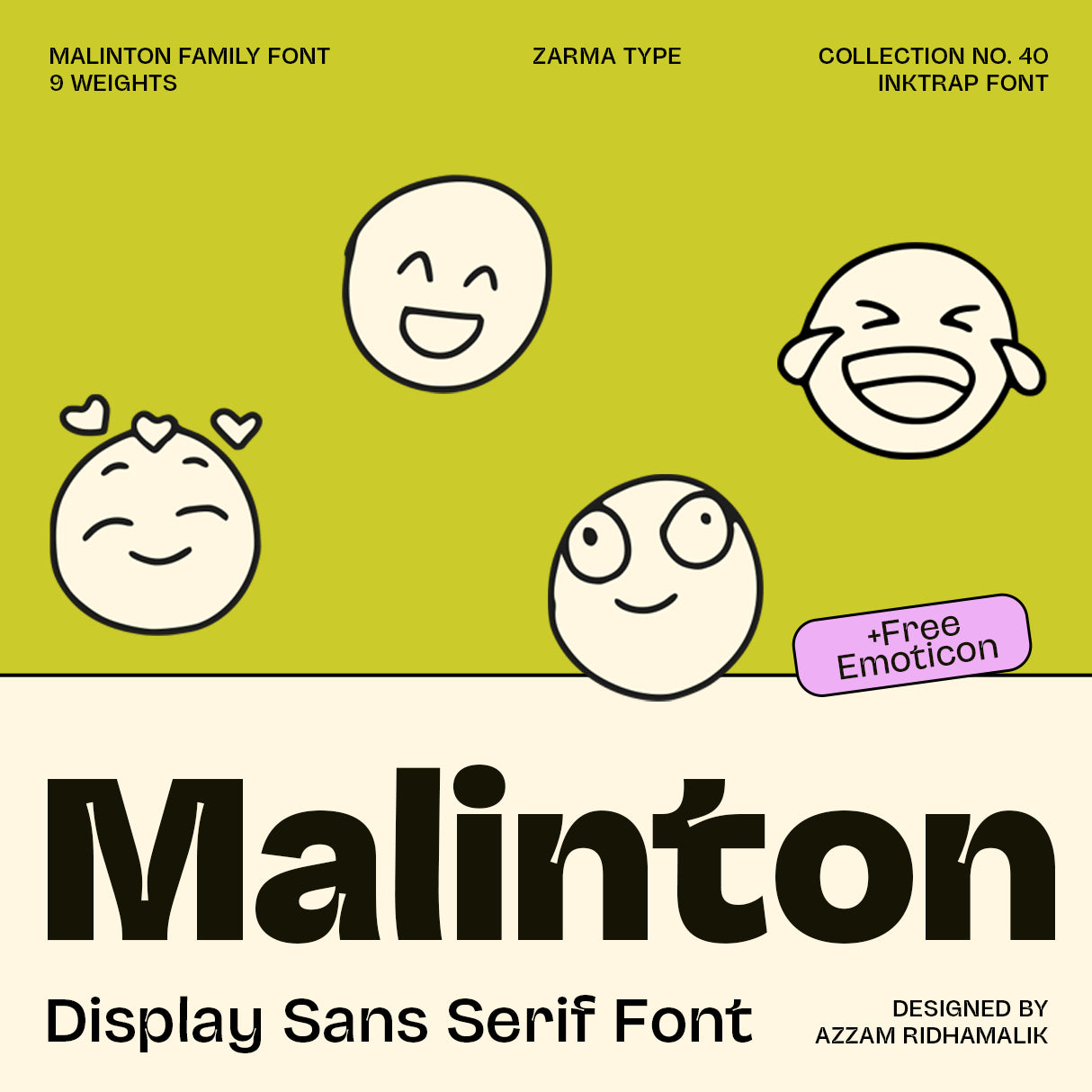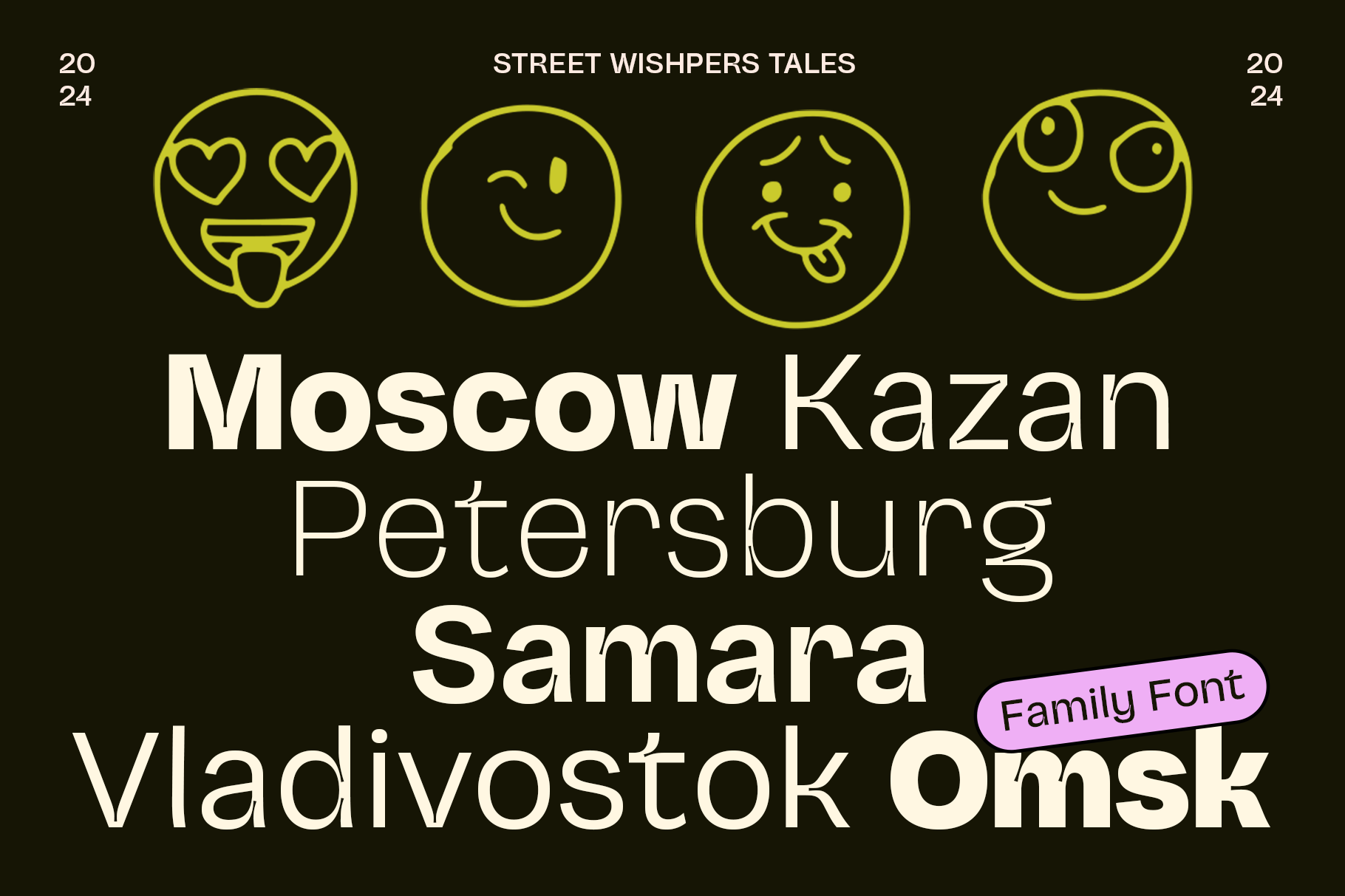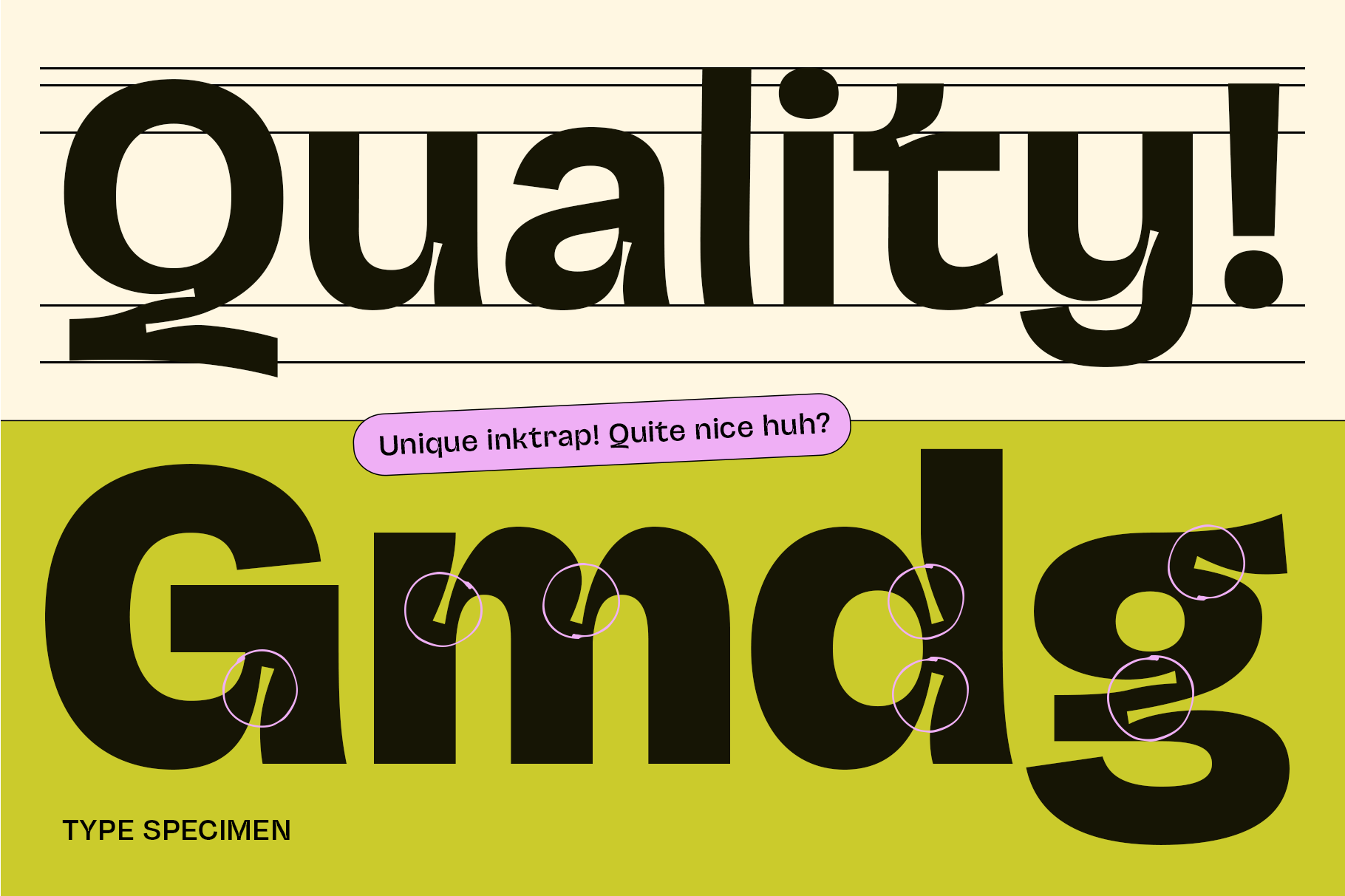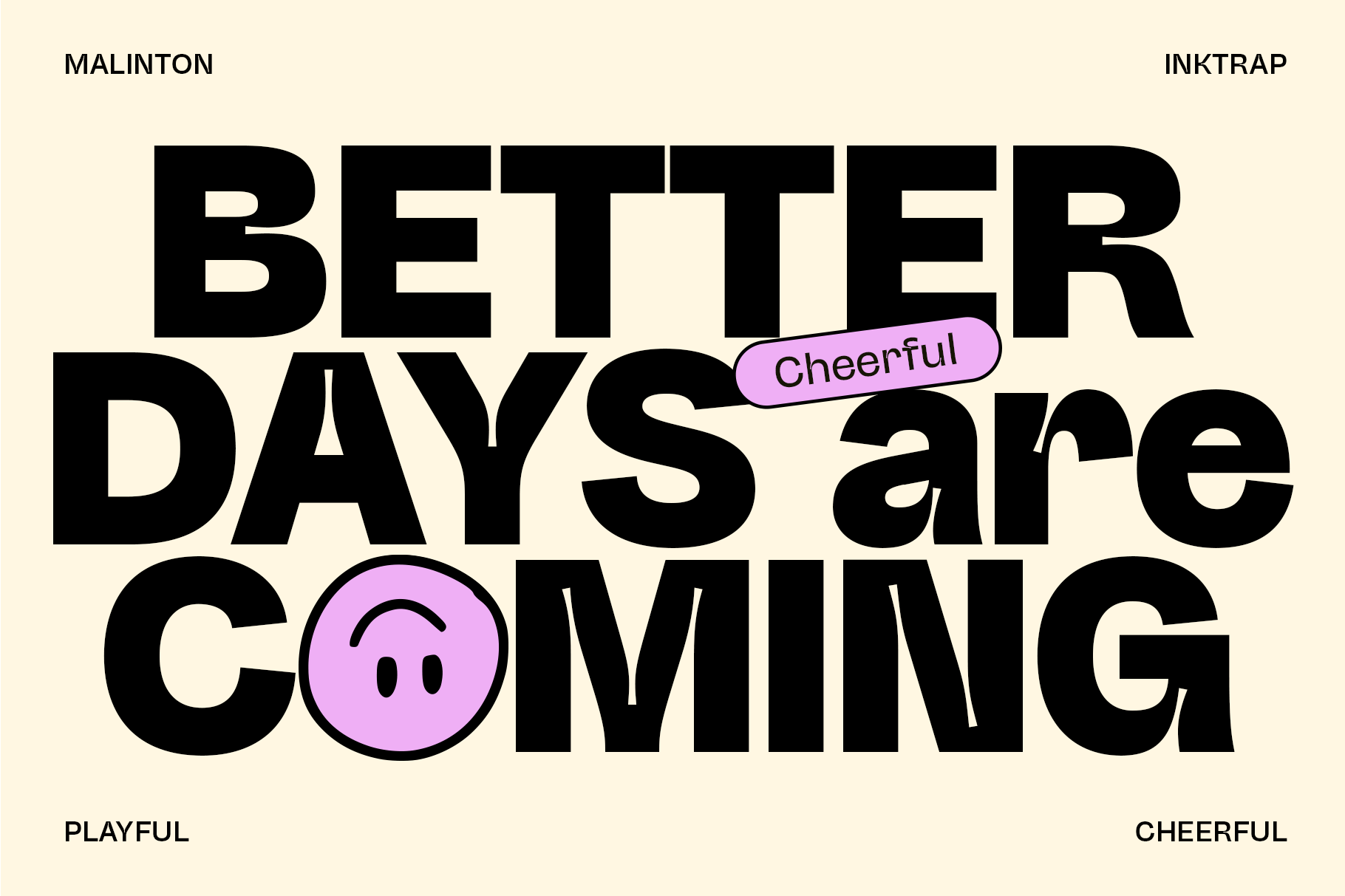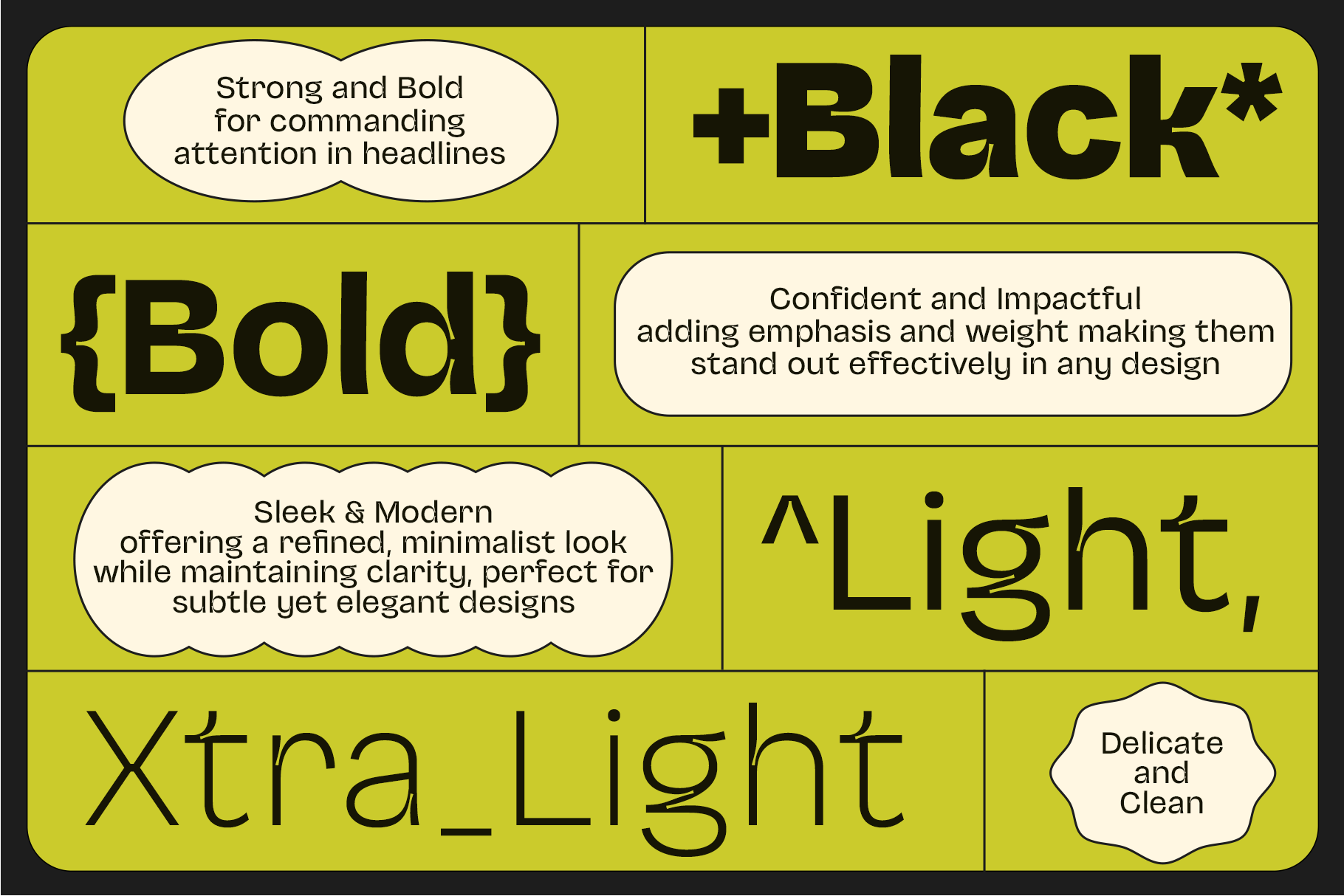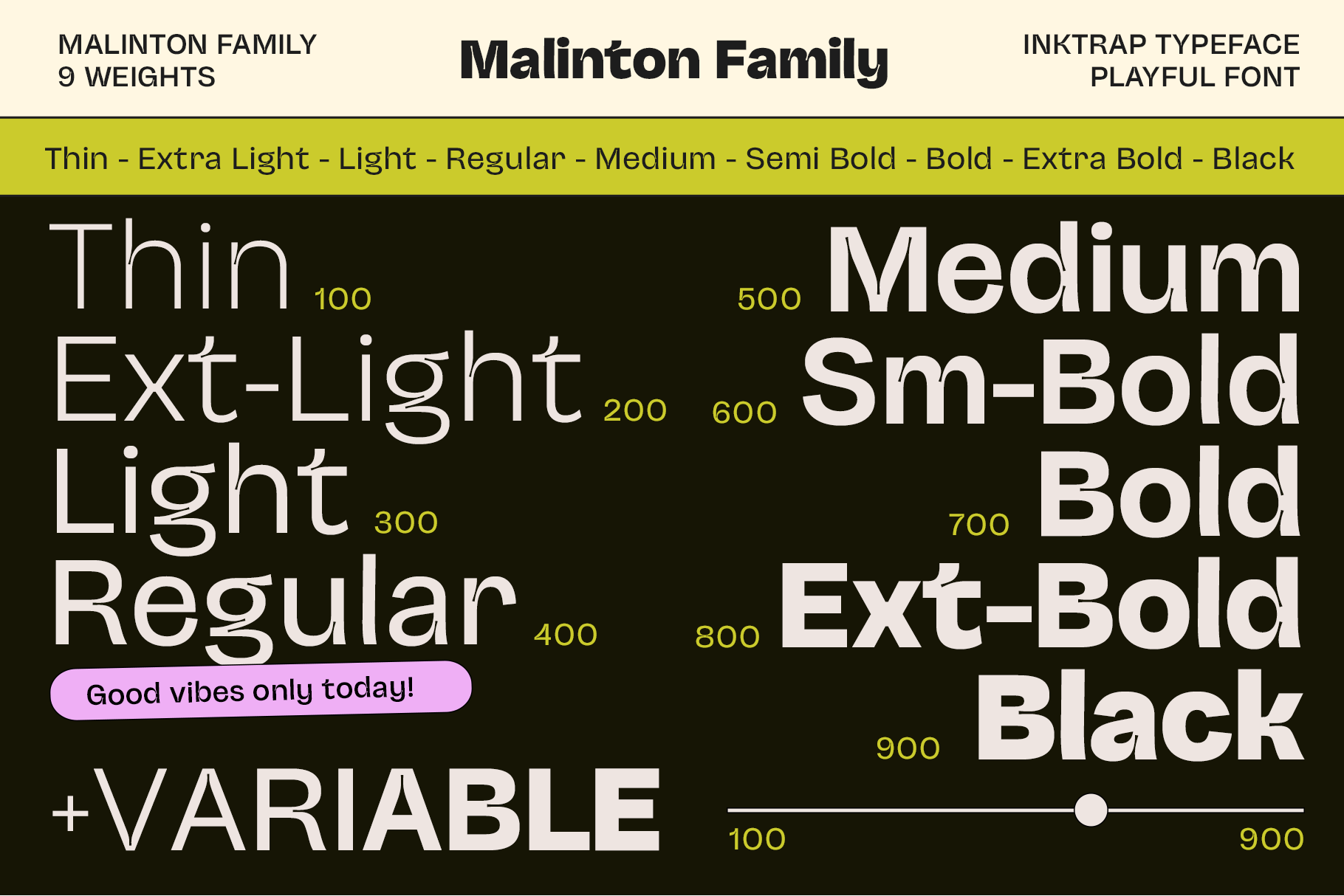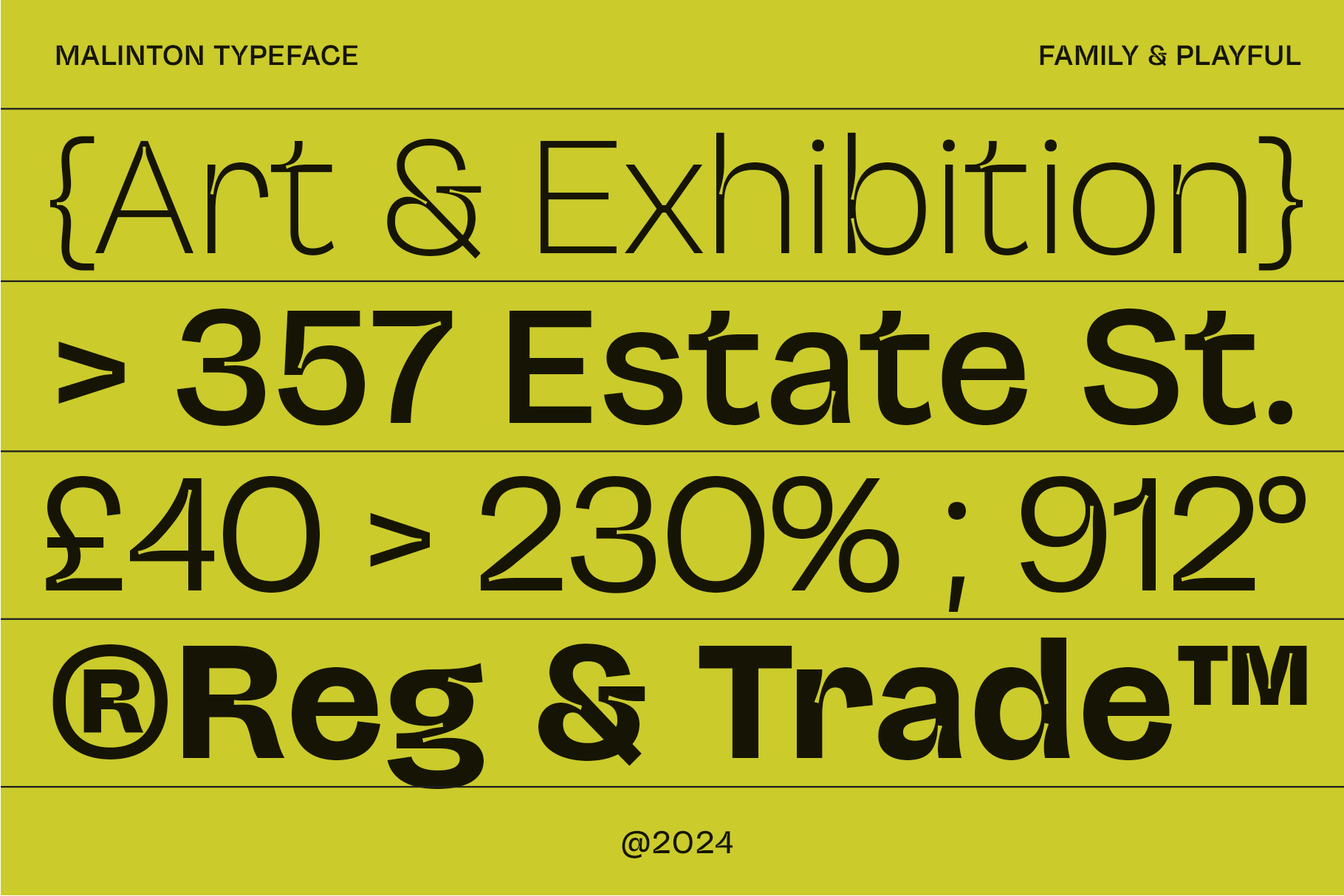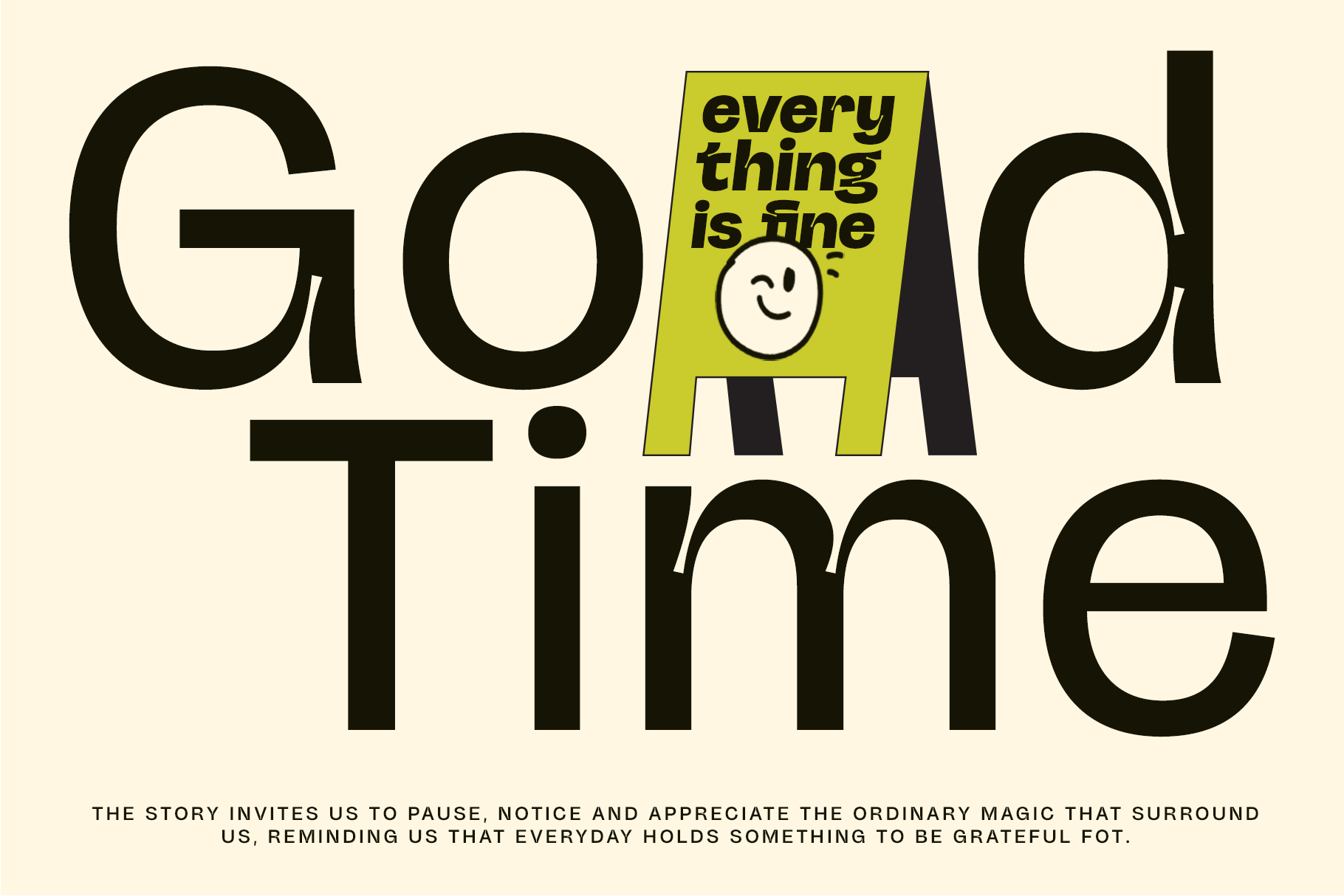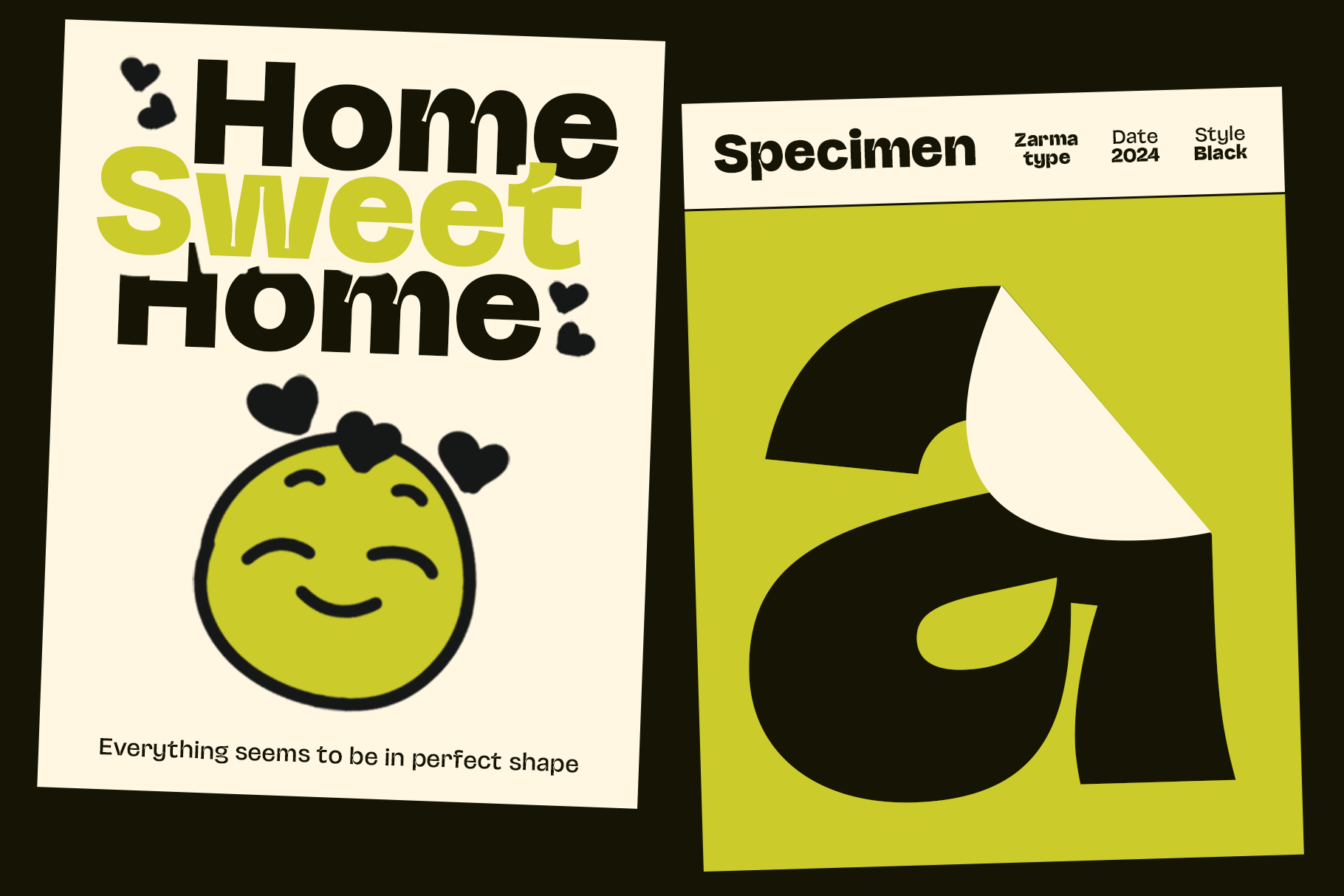
Malinton Family Font
Malinton is a versatile Playful Font and modern display sans serif designed to bring personality to every project. From branding, logos, social media, editorial headlines, and marketing materials to creative packaging, Malinton transforms ordinary typography into bold visual statements. Available in 9 weights from Extra Light to Black, including a Variable Font, it features professional inktraps for a clean contemporary look, smooth weight transitions, and unique Free Emoticon alternates that add extra expression to your designs while maintaining excellent readability.
Built for designers who value both creativity and flexibility, Malinton includes uppercase and lowercase characters, numbers, punctuation, ligatures, OpenType features, PUA encoded characters, and an Extended Latin character set with 360+ glyphs supporting 85+ languages. Whether you're searching for a playful display font, a standout logo font, or a bold typeface with professional functionality, Malinton delivers the perfect balance of fun, versatility, and modern design.
Malinton Family Font is a modern display sans serif typeface available in 9 weights, including a Variable Font, featuring professional inktraps for a clean look and smooth weight transitions. It includes uppercase and lowercase characters, numbers, punctuation, ligatures, OpenType features, and an Extended Latin character set with over 360 glyphs supporting 85+ languages.